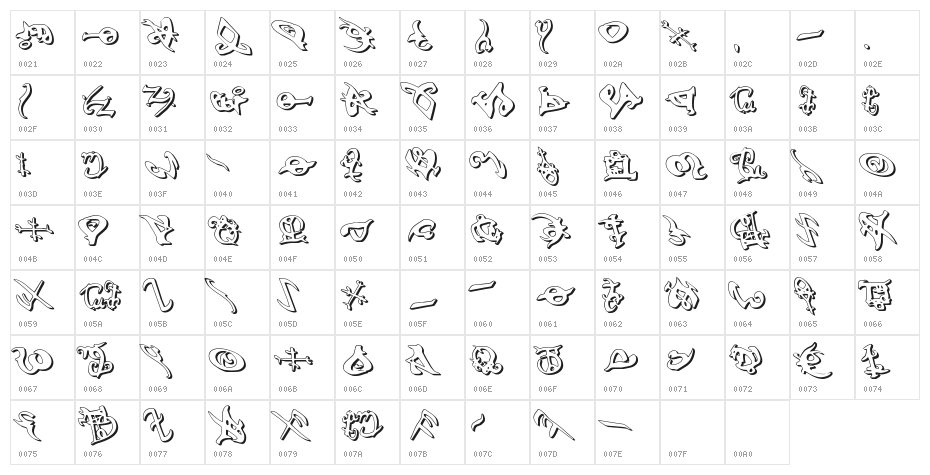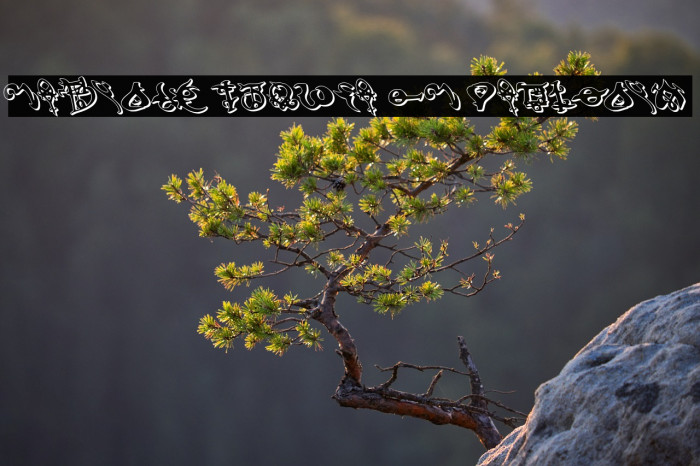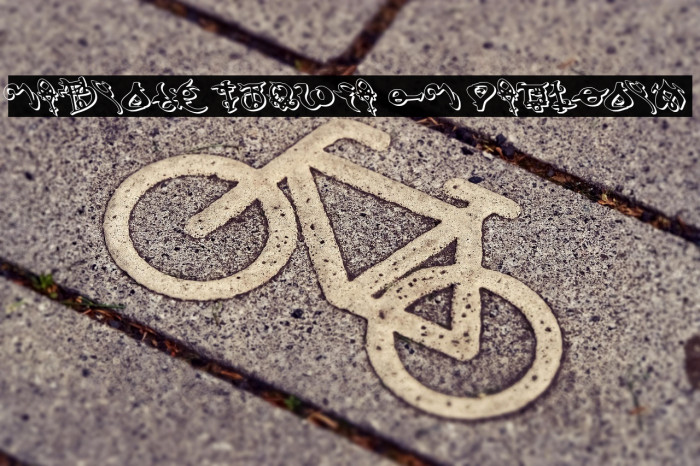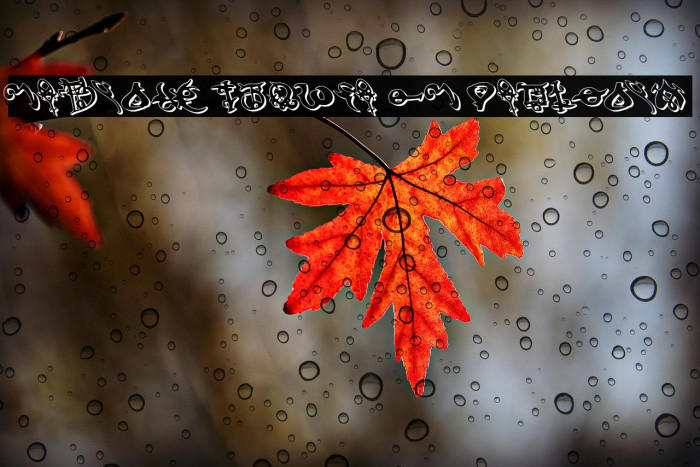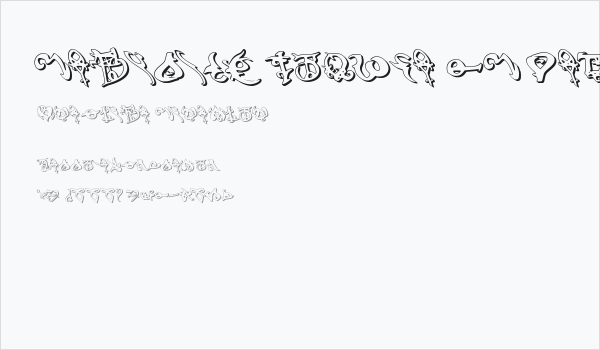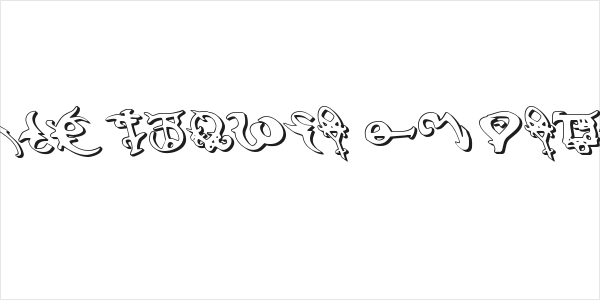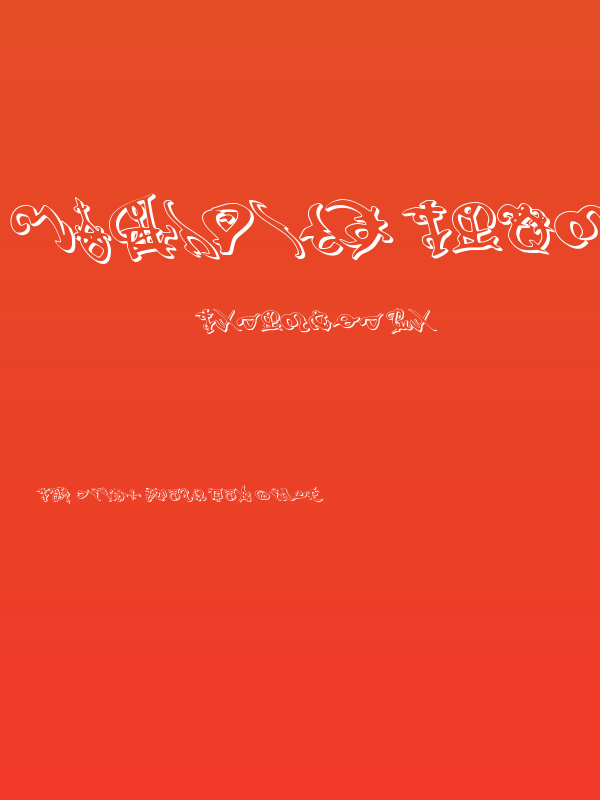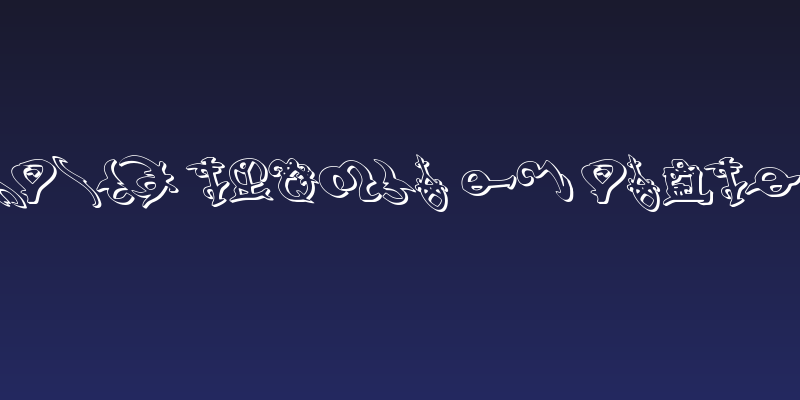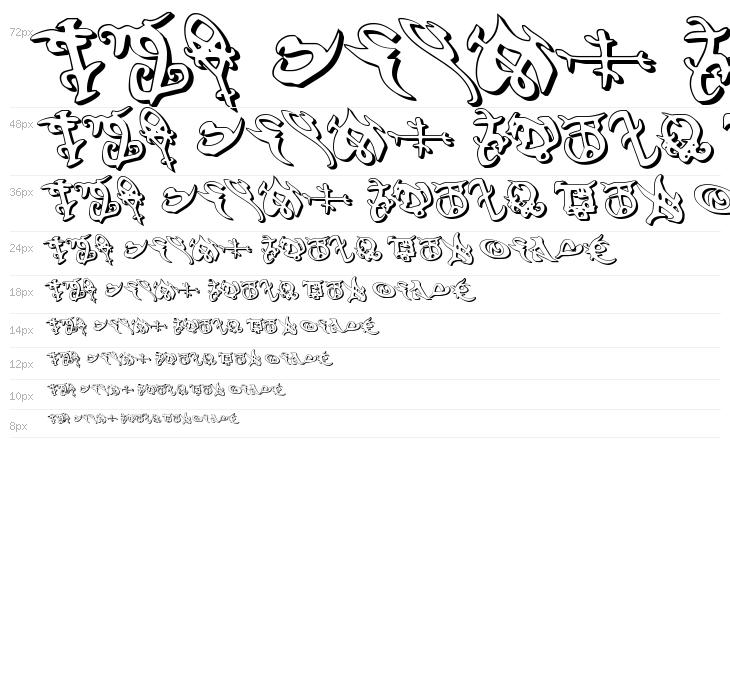
Devil's Tongue 3D Leftalic Font
Devil's Tongue 3D Leftalic Description
This font features a highly decorative and abstract style, reminiscent of graffiti or street art. Each character is uniquely stylized with intricate curves and sharp edges, creating a sense of movement and energy. The 3D effect adds depth, making the letters appear as if they are popping off the page. The overall design is bold and eye-catching, suitable for projects that require a strong visual impact. The font's unique characteristics make it ideal for creative and unconventional uses.
| Proposed Projects | Ideal for album covers, street art-inspired designs, posters, and branding for edgy or alternative products. |